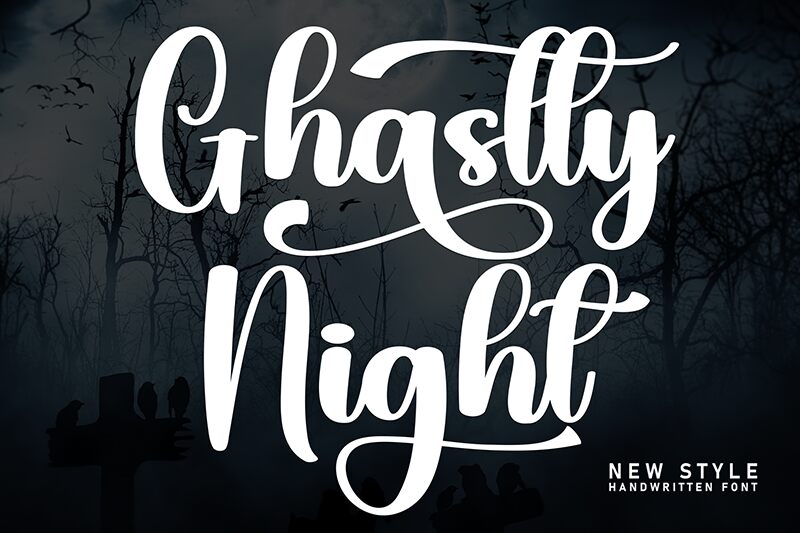
Ghastly Night
Ghastly Night font is a free calligraphy font by Scratchones with elegant flowing brush elements. The stylish disconnected artistic curves combining thin and bold strokes in each letter give vintage appeal with an expressive look. Its structure connecting cursive characters results in an exceptional attractive script for all modern designers.